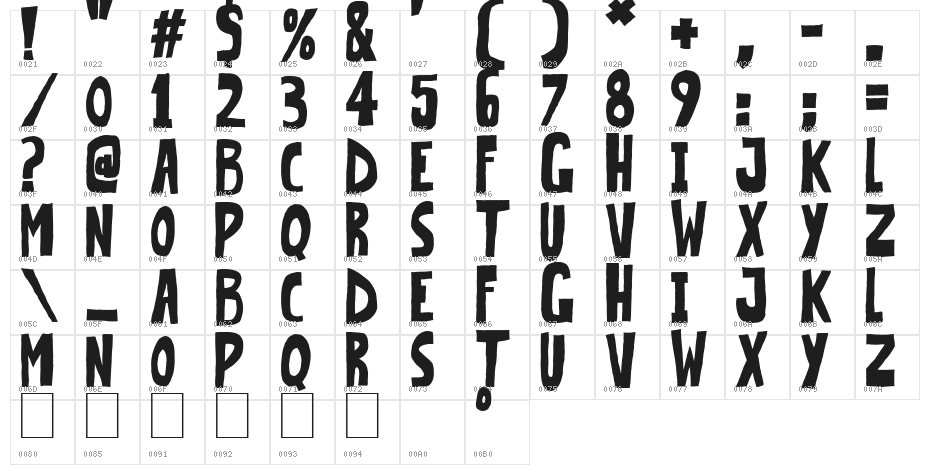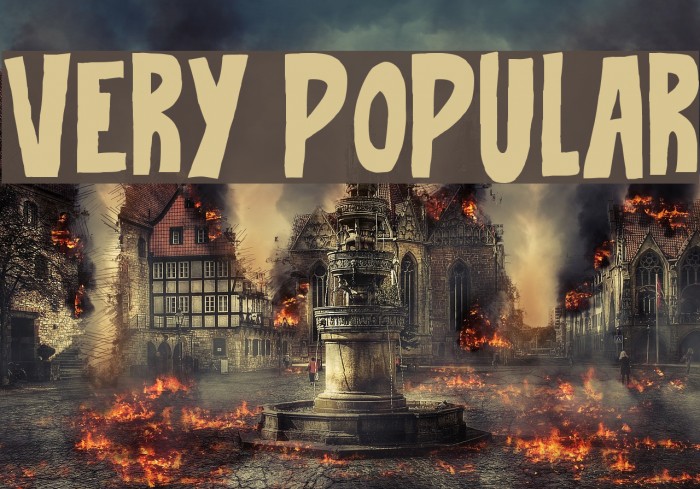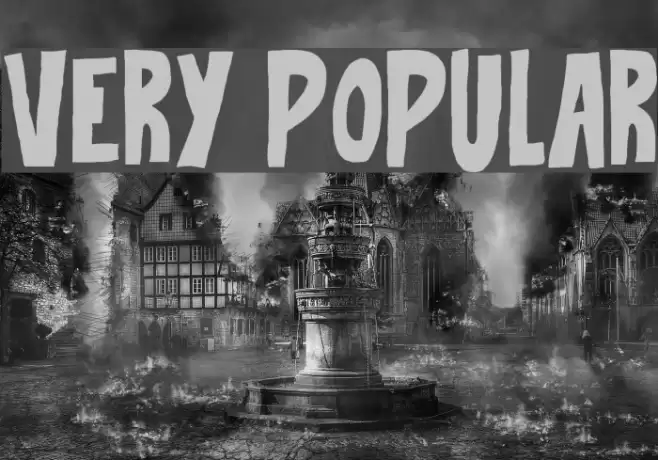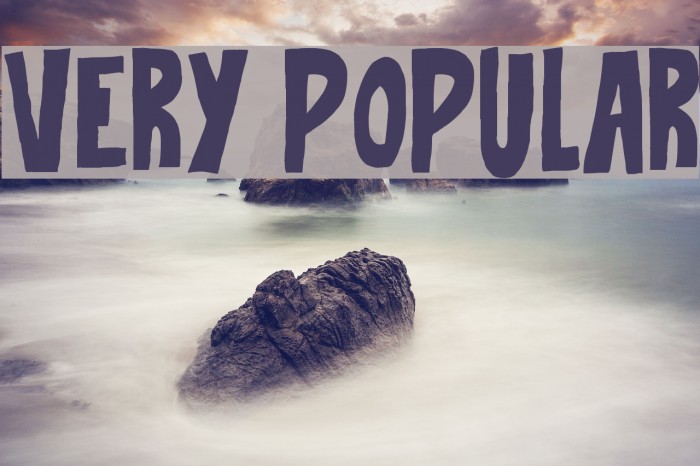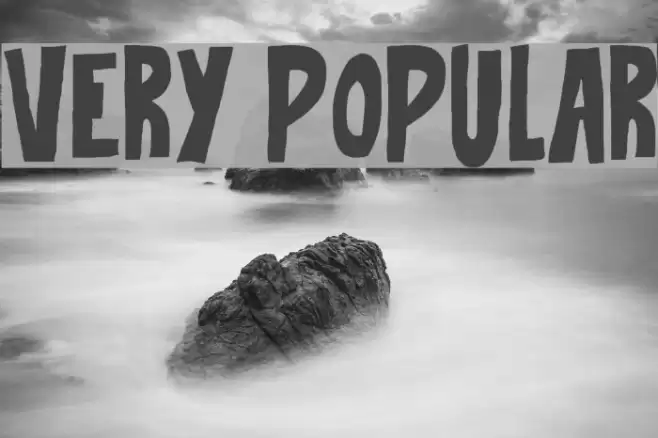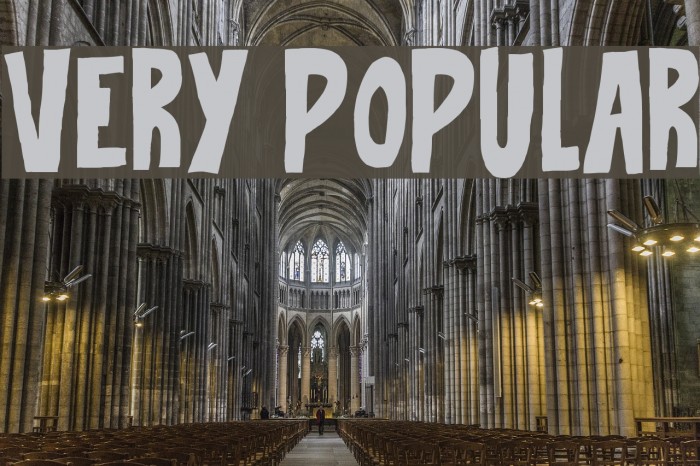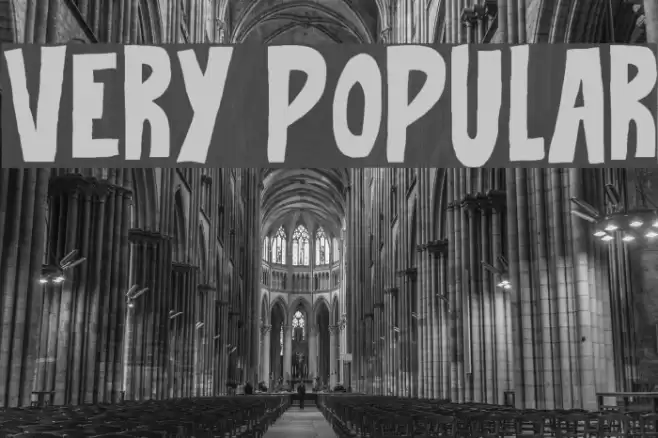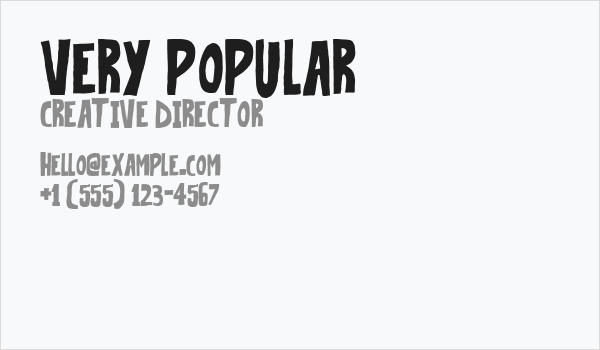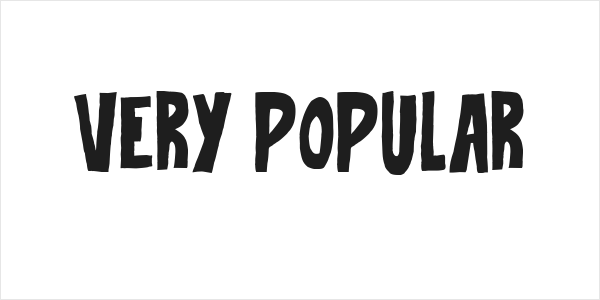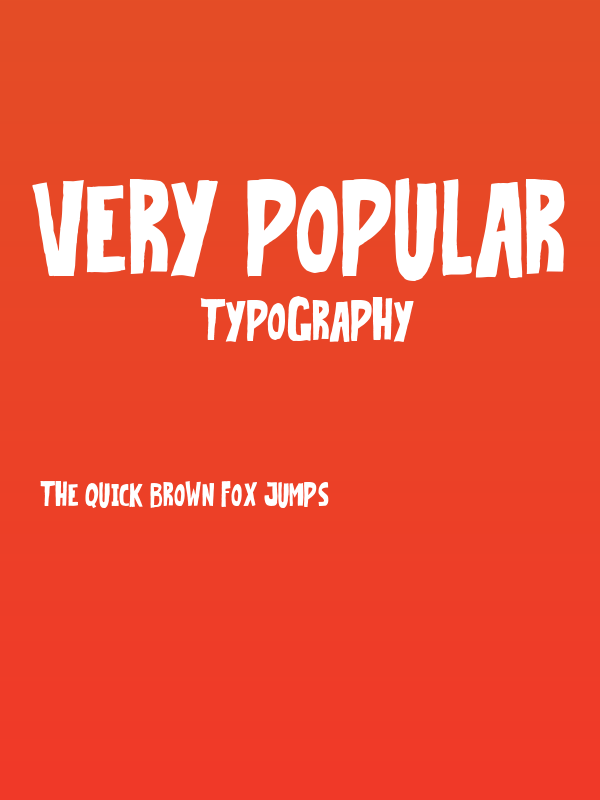
Very Popular Font
Very Popular Description
This font features a bold and expressive style with a hand-drawn appearance, giving it a playful and energetic vibe. The letters are unevenly shaped, adding a sense of dynamism and movement. The uppercase and lowercase letters maintain a consistent boldness, while the numbers and special characters complement the overall aesthetic. The strokes are thick and irregular, contributing to a casual and informal look. This font is ideal for projects that require a fun and lively touch, such as posters, flyers, and creative branding.
| Overall Style | Playful, Energetic, Casual |
| Proposed Projects | Perfect for posters, flyers, creative branding, and any project needing a lively touch. |